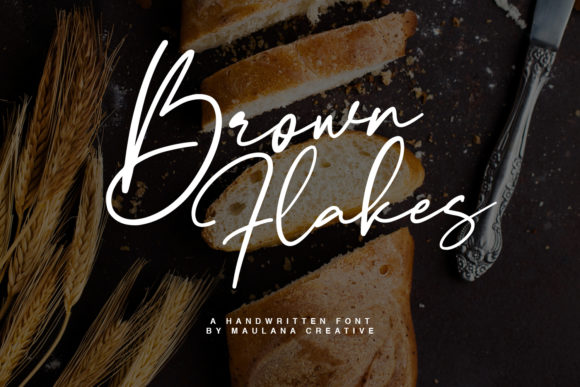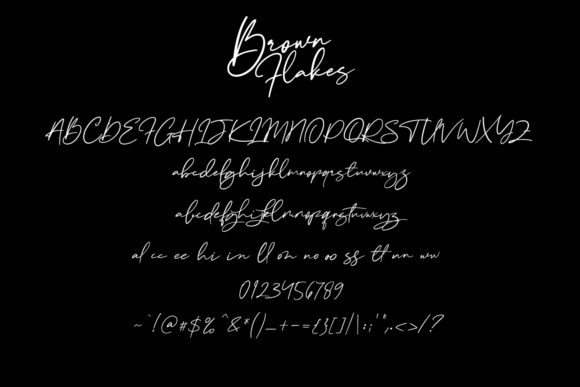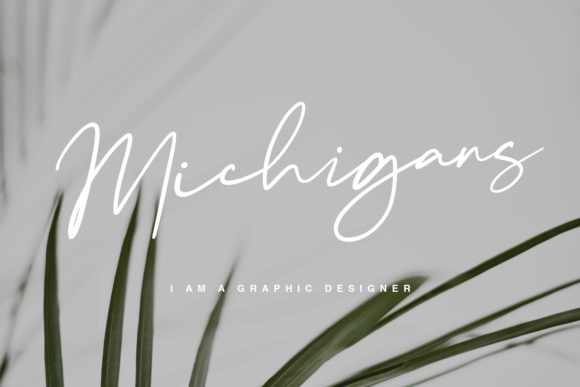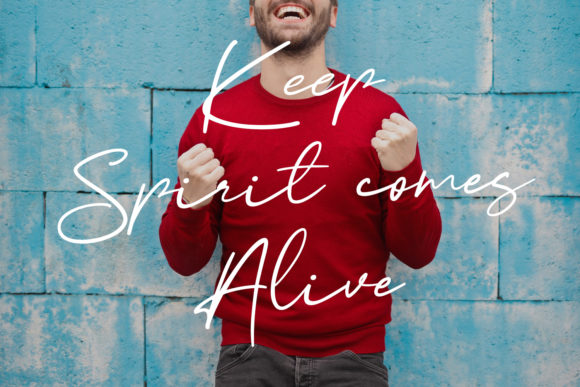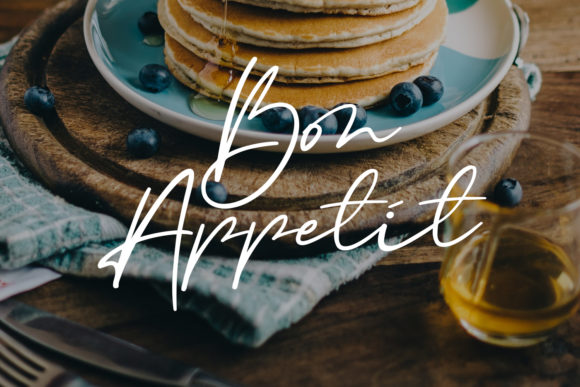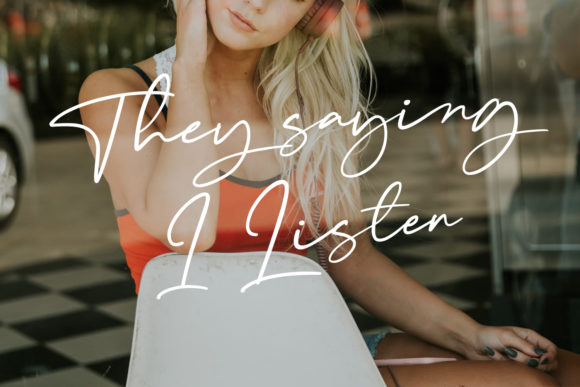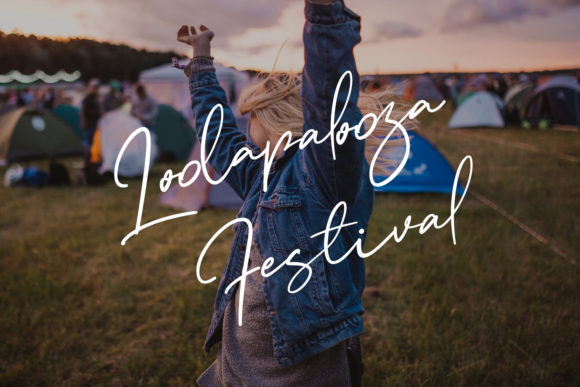
Brown Flakes Font
About Brown Flakes Font
Brown Flakes is a cute and casual handwritten font with an incredibly friendly feel. Whether you’re looking for fonts for Instagram or calligraphy scripts for DIY projects, Brown Flakes will turn any creative idea into a true piece of art!